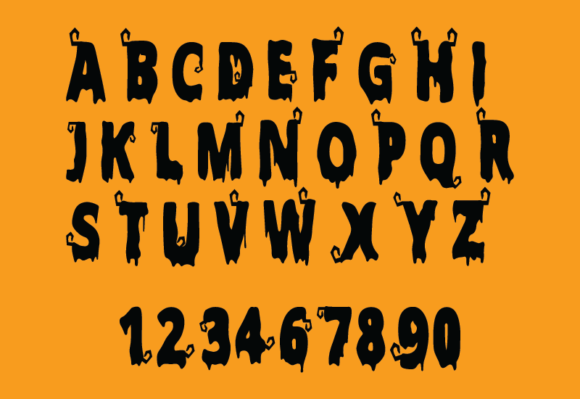
Get Ready to Cast a Spell with the Perfect Halloween Costume Font
As the leaves start to change and the air grows crisp, you can’t help but feel a spark of creativity ignite within you. The season of spooky fun is just around the corner, and with it, the perfect opportunity to unleash your imagination. Whether you’re a seasoned designer or a DIY enthusiast, you know that the right font can make all the difference in bringing your Halloween projects to life.
Enter the Halloween Costumes Font, a delightful typographic treasure trove designed specifically for the witching season. This font is a must-have for any designer looking to add a touch of magic to their Halloween projects, from spooky stories and cards to gift tags and wrapping paper. With its playful, whimsical characters, the Halloween Costumes Font is sure to bring a smile to the faces of your friends and family.
Halloween Costumes Font Key Features
- Font Family: Halloween Costumes Font is a unique, hand-drawn font designed specifically for Halloween and costume-related themes.
- Unique Characteristics: The font features a playful, spooky aesthetic with intricate details and ornaments, making it perfect for adding a touch of Halloween magic to designs.
- Character Set: The font includes a wide range of characters, including uppercase and lowercase letters, numbers, punctuation marks, and special characters, ensuring that designers have everything they need to create engaging designs.
Halloween Costumes Font Review
I recently had the chance to work with the “Halloween Costumes Font”, and I must say it was an interesting experience. Here are my thoughts on the font.
- The font’s playful and spooky vibe is perfect for Halloween-themed designs.
- The bold lines and eerie feel evoke a sense of mystery and intrigue.
- The font’s bold weight makes it easy to read, even at smaller sizes.
- The font’s versatility allows it to be used in a variety of contexts, from spooky decorations to Halloween-themed merchandise.
- The font’s limited character set may make it difficult to use for longer text.
- The font’s spooky feel may not be suitable for all audiences, particularly younger children.
- The font’s bold weight may make it difficult to pair with other fonts that have a more delicate feel.
- The font’s lack of italic and bold italic styles may limit its use in certain contexts.
Overall, I think the “Halloween Costumes Font” is a solid choice for Halloween-themed designs. While it has some limitations, its unique feel and versatility make it a great option for designers looking to add a spooky touch to their work.
Getting the Most Out of the Font
Experiment with different font sizes, colors, and combinations to create a unique look.
Use the font to create spooky titles, haunted house signs, or even costume labels.
Halloween party invitations, haunted house decorations, costume designs, and spooky blog posts are just a few examples of how you can use the Halloween costumes font.